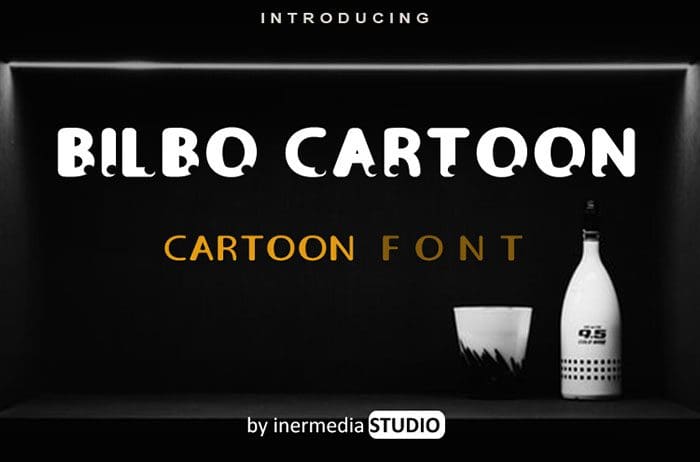
Bilbo Cartoon display font is a unique and fun font. It will look particularly adept when used in logos, branding, packaging design, and much more. This masterfully designed Bilbo Cartoon is a true must-have. Designed this font by Inermedia Studio. You can also search more freeĀ Display Fonts.
Designed By : Inermedia Studio